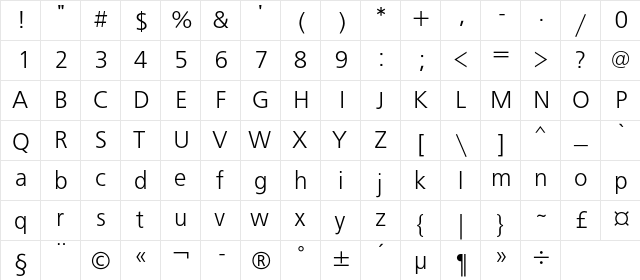
FreeSetC Regular
Design Context for FreeSetC Typeface
FreeSetC offers clean, dependable letterforms without strong stylistic allegiance, making it a practical choice for designers who need flexibility.